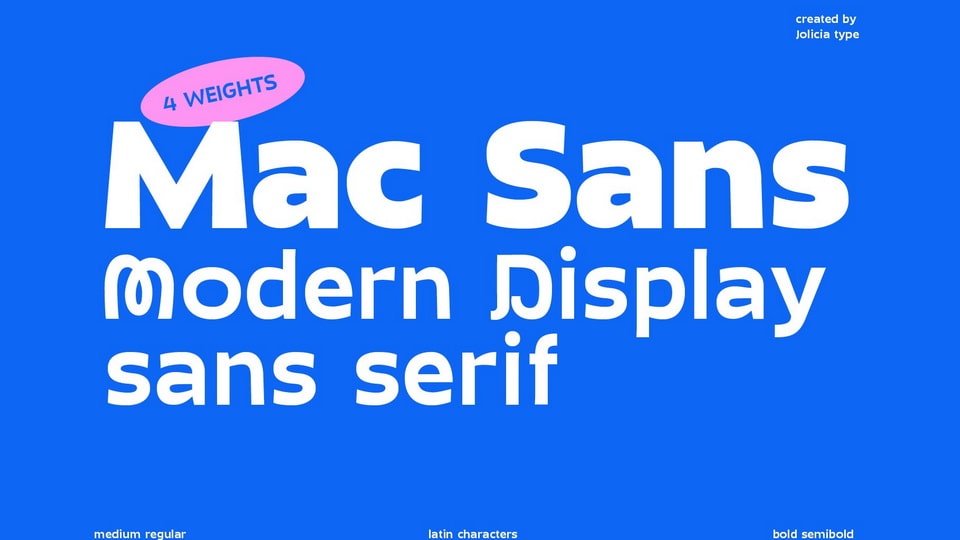
Download Mac Sans font, a modern sans serif typeface that effortlessly combines a strong, authoritative presence with a distinctive character that sets it apart from the crowd. Mac Sans strikes the perfect balance between a bold, assertive statement and an inviting, approachable style.